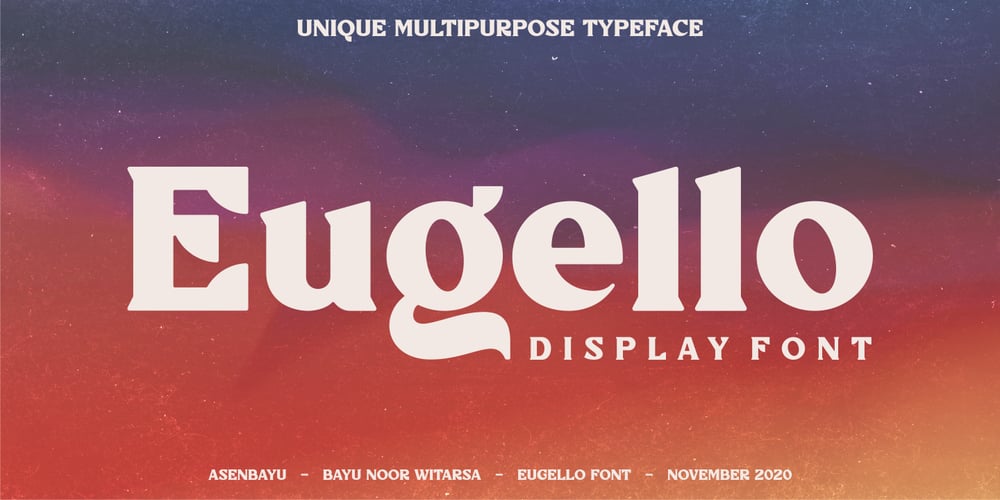
Eugello Font Family was designed by Bayu Noor Witarsa and published by Asenbayu. Eugello contains 1 styles and family package options. Eugello is a multipurpose display font with a unique shape. You can use this font in retro, vintage and hipster designs. This font is perfect for a variety of projects, such as branding, poster displays, logo designs, magazine, headline, sticker and more.Eugello font feature opentype, kerning and ligature. Eugello include uppercase letters, lowercase letters, numeral, punctuation and multilingual support.